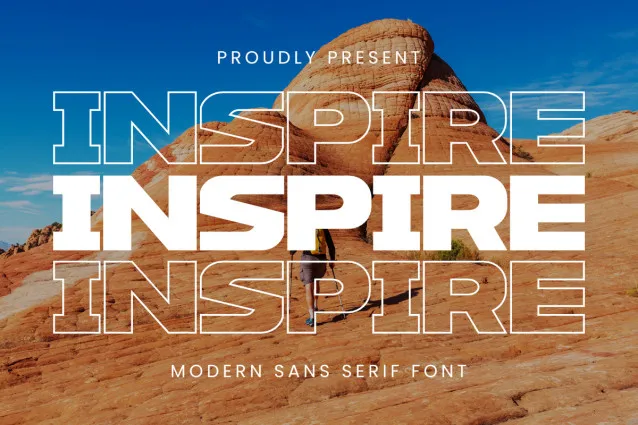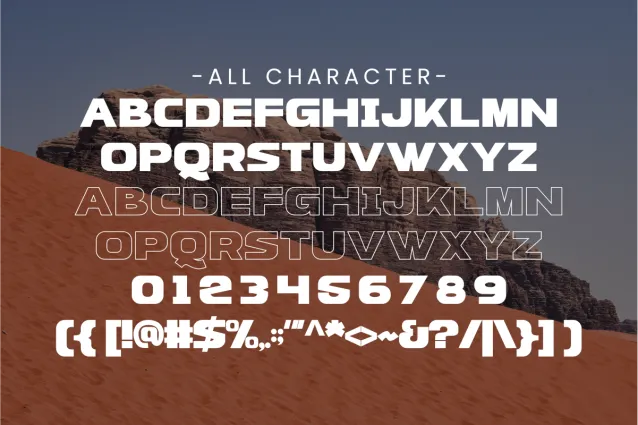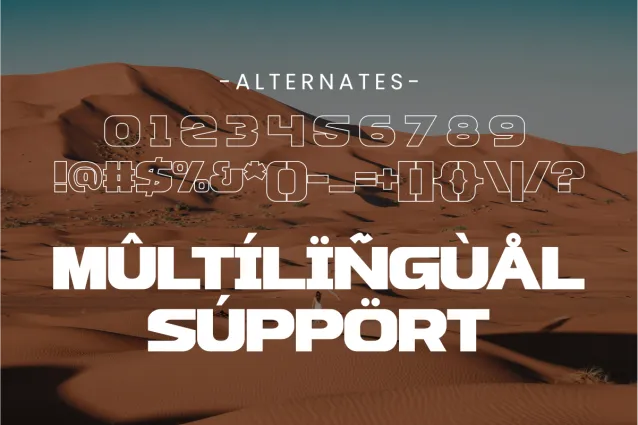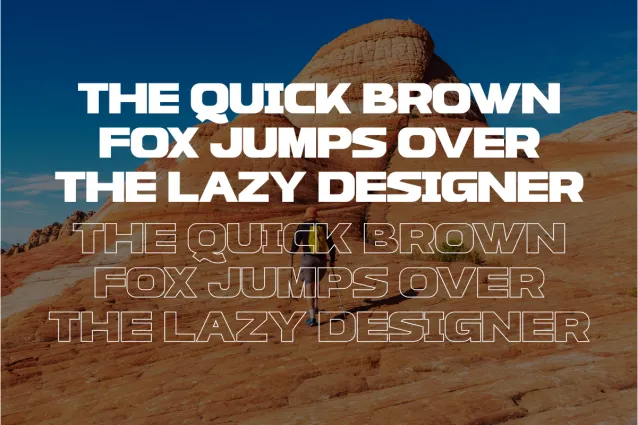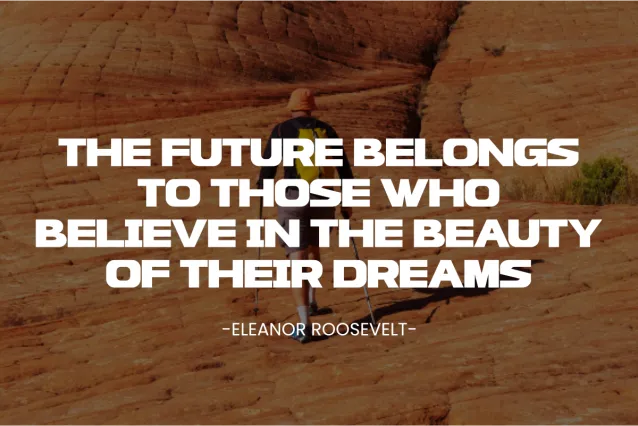
About Inspire Font
I’m a typographer and graphic designer who loves exploring new typefaces that elevate a brand’s visual story. While working on a modern branding project, I came across the Inspire Font Family during a late-night font search. Something about its bold yet refined sans serif style immediately caught my eye.
I downloaded it and tested it on my logo design, and the results were stunning. The font is perfect for creative projects that need a confident, clean look. I wanted to share this review because great fonts deserve attention, and Inspire Font Family is one of them.
About the Font Type and the Designer
The Inspire Font Family is a sleek sans-serif typeface created by Lovian JK, a designer known for crafting fonts with personality and precision. This display font mixes modern geometry with soft humanist curves, giving it a friendly yet professional feel. It balances sharp lines and smooth transitions, making it stand out in branding, packaging, and creative projects.
Lovian JK designed Inspire with versatility in mind. It’s available in multiple weights and works beautifully in both personal and commercial settings. Each letter was crafted to maintain readability across a wide range of sizes, from bold logos to elegant invitation text. The Inspire Font Family supports over 197 languages, making it perfect for global brands that value strong, clear typography.
When you download the Inspire Font Family, you’ll notice its refined proportions. It gives a modern, playful, yet authentic tone, ideal for social media graphics, brand announcements, or even a Black Friday flyer. The font is ideal for designers who want something that looks both contemporary and timeless.
Features of the Inspire Font Family
The Inspire Font Family shines with its mix of minimalism and strength. Its sans serif structure gives text a clean and balanced appearance, while its subtle round edges add a welcoming tone. Whether you’re working in Procreate, Illustrator, or Photoshop, it installs easily and stays consistent across platforms.
Each weight in the Inspire Font Family was designed for practical use, from body text to bold display headers. It fits perfectly in advertisement layouts, packaging, and custom brand creations. The handwritten typeface variants feel natural, offering a personal touch for quotes, event invitations, or script font elements.
Overall, the Inspire Font Family captures attention without overpowering other design elements. It’s easy to read, quick to install, and adaptable to every creative project imaginable, from minimal branding to expressive digital art.
The Inspire Font Family works beautifully across a variety of design settings. Its bold, clean style makes it suitable for brand logos, packaging, and advertisements. If you’re creating brand announcements, social media posts, or website headers, this display font brings balance between strength and sophistication.
For event materials like invitations, Black Friday flyers, or custom promotional graphics, the font is perfect. Its authentic texture and modern proportions make every layout look intentional. You can even use it in Procreate for lettering projects or handwritten-style artwork.
Because it’s a sans serif family, it blends easily with script fonts and handwritten typefaces, giving designers flexibility for creative projects. Whether you’re working on digital ads, editorial layouts, or product design, Inspire enhances the feel of your work with clarity and confidence.
Simply put, the Inspire Font Family helps your designs look sharp, professional, and engaging, no matter the platform or project.